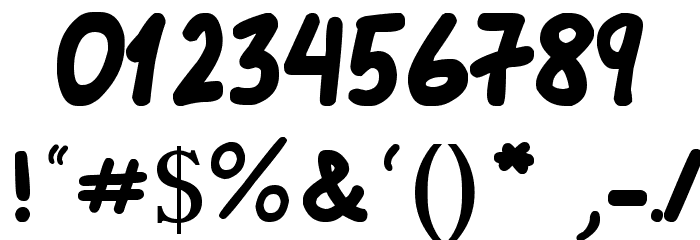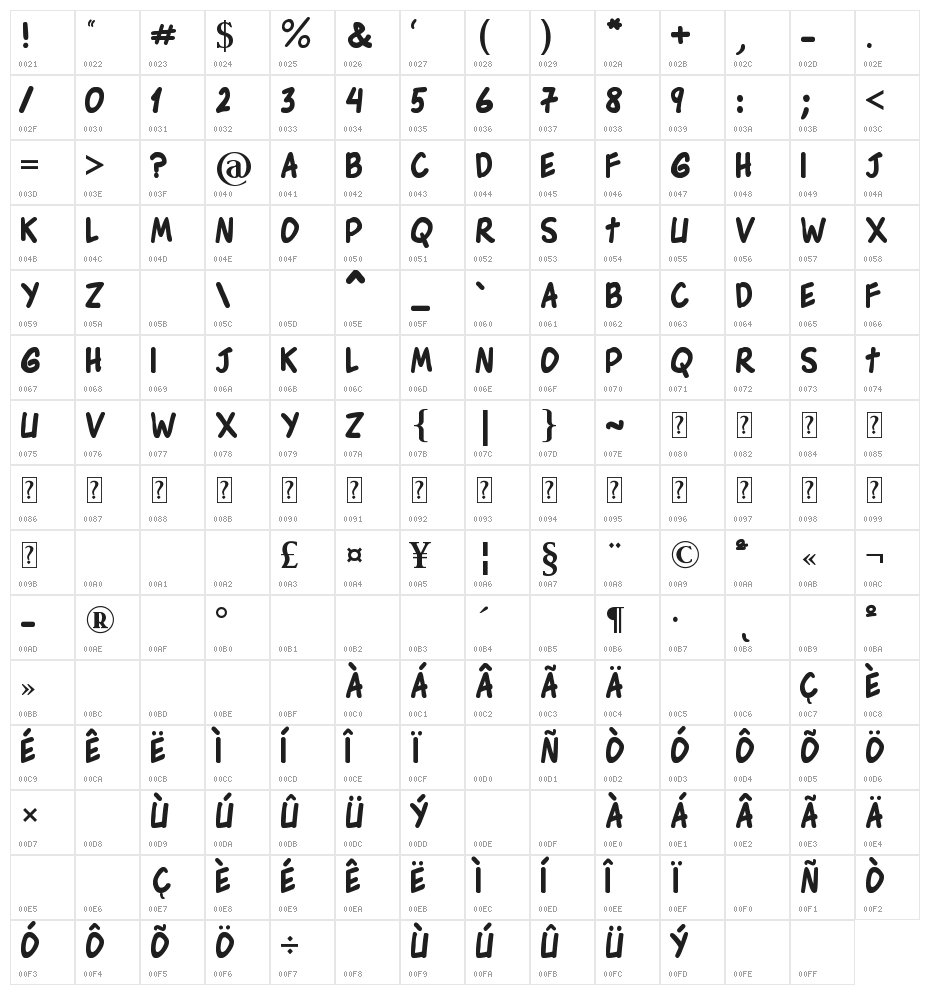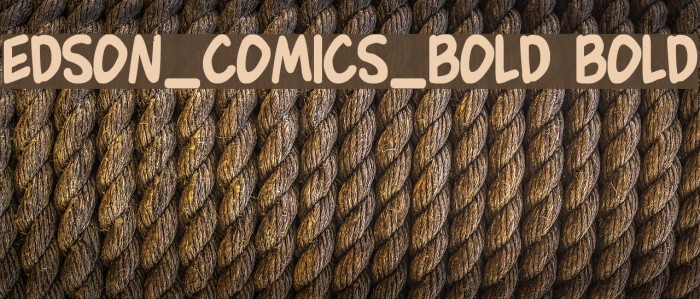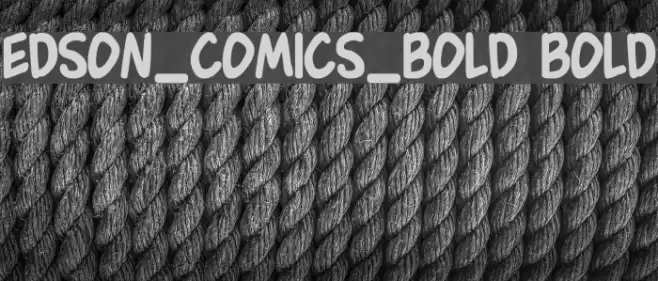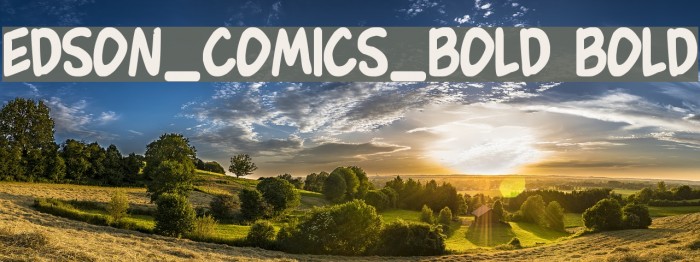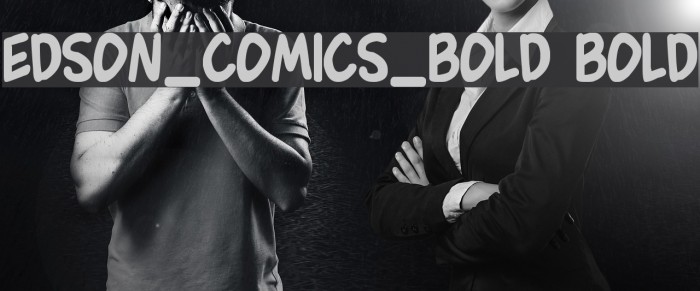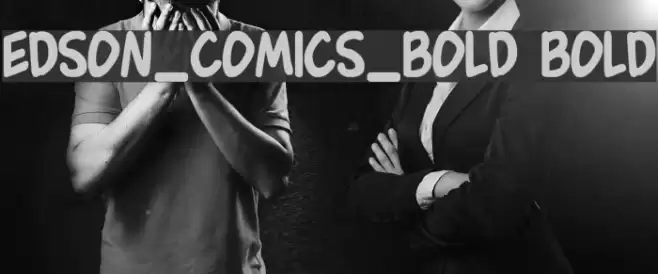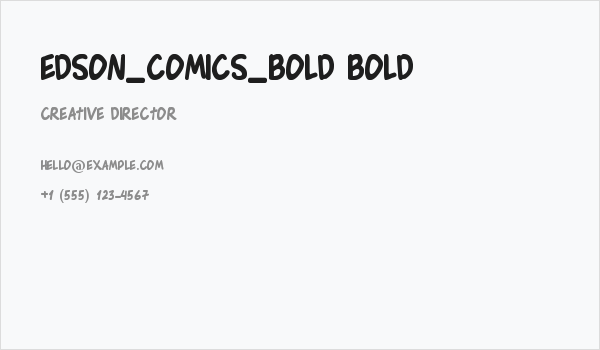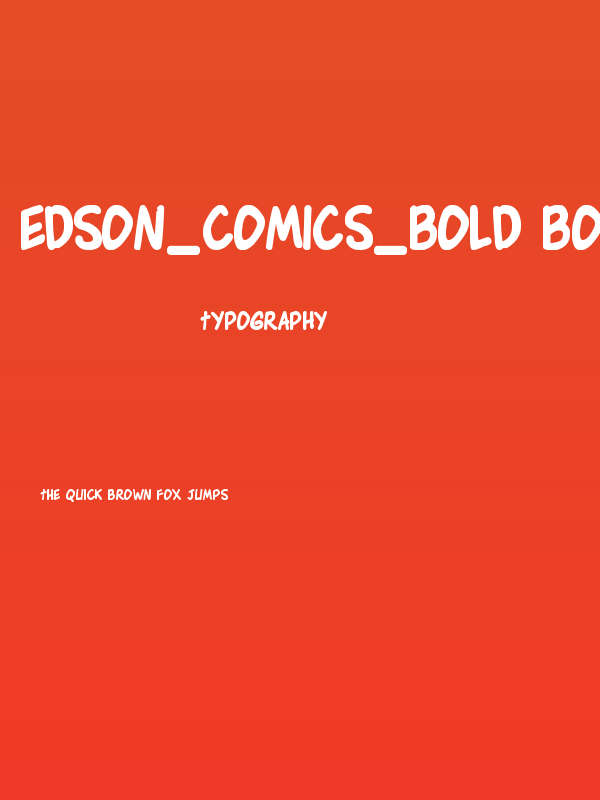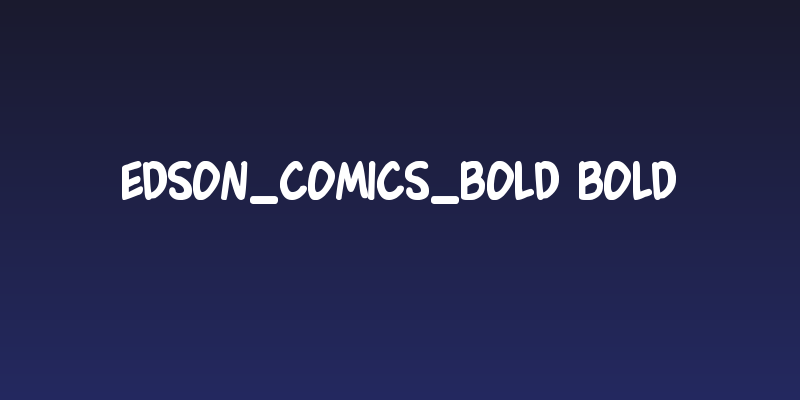
Edson_Comics_Bold Bold Font
Edson_Comics_Bold Bold Description
This font features a bold, playful style with rounded edges and a hand-drawn appearance. The characters are thick and slightly irregular, giving them a casual and friendly look. The uppercase and lowercase letters maintain a consistent weight, while the numbers and special characters complement the overall design. The font's boldness makes it highly legible and suitable for attention-grabbing headlines or creative projects. Its informal style is perfect for comic books, children's books, or any project that requires a fun and approachable aesthetic.
EDSON_COMICS_BOLD-BOLD UPPERCASE
EDSON_COMICS_BOLD-BOLD LOWERCASE
EDSON_COMICS_BOLD-BOLD OTHER CHARS
| Overall Style | Playful, Casual |
| Proposed Projects | Ideal for comic books, children's books, posters, and playful branding. |